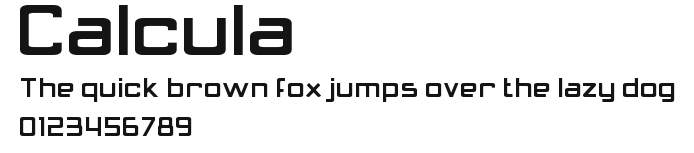
• Font Name: Calcula
• Full Font Name: Calcula
• Version: Version 1.00 May 23, 2005, initial release
• Copyright: Typeface © (Pepijn de Brouwer). 2005. All Rights Reserved
About Calcula.ttf
Calcula.ttf is a modern, elegant sans-serif font designed for ultimate readability and visual harmony. Perfect for branding, headlines, web design, and print materials.